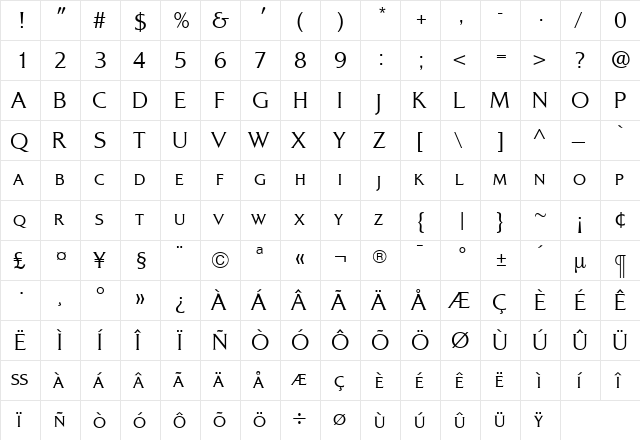
AlexonLightExpert Regular
Design Context for AlexonLightExpert Typeface
AlexonLightExpert is a composed and adaptable typeface that performs quietly and consistently across a wide range of design contexts. The delicate stroke weight brings airiness and refinement to layouts.